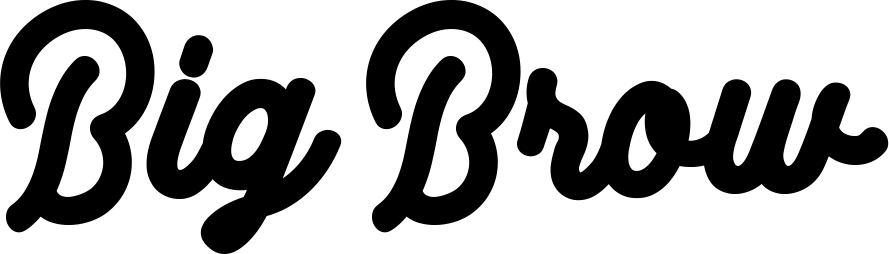
Big Brow Font
Care for an attractive and professional script font to brighten up your projects? Big Brow works wonders with a bold and welcoming letterform and a delightful spirit. This rich font is delicate and has an old-school quality that further increases its appeal.
Make a splash with Big Brow and create warm and smooth logotypes, titles, and a range of other projects. Dive into our rich and ever-growing fonts for further handwriting fonts and beyond. Thanks for your support.